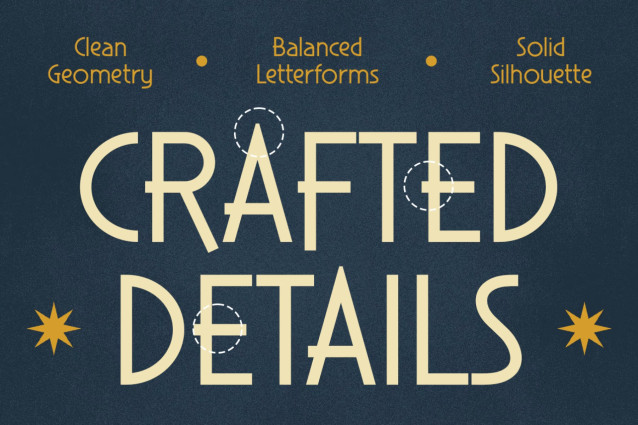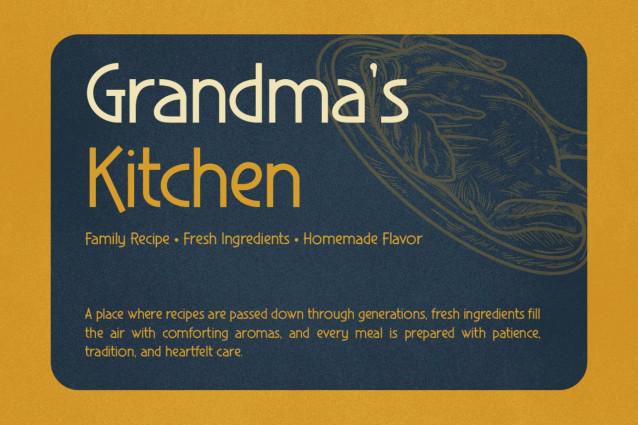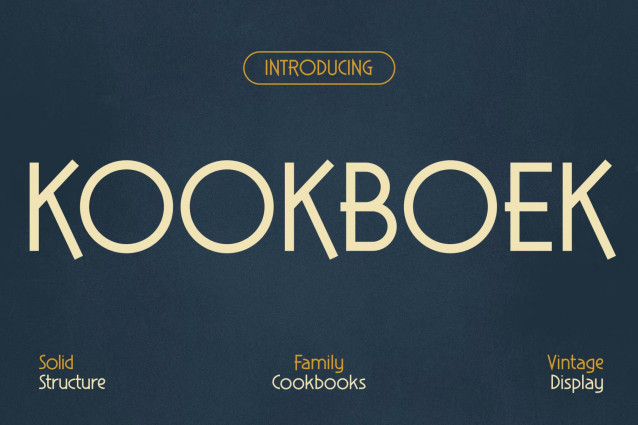
KOOKBOEK – Cook Up Timeless Designs with Vintage Character
Retro Font KOOKBOEK blends refined vintage aesthetics with clean geometric letterforms to create a timeless display font. Inspired by classic cookbook covers and traditional market signs, it delivers an elegant yet approachable personality. Moreover, every character is carefully balanced for excellent readability. At the same time, its handcrafted details add warmth and authenticity. As a result, every headline feels memorable and full of character.
Whether you design for print or digital media, KOOKBOEK brings vintage charm to every project. In addition, it includes Multilingual Support for 67 languages, making it suitable for international audiences. Therefore, you can create consistent branding across multiple markets with confidence.